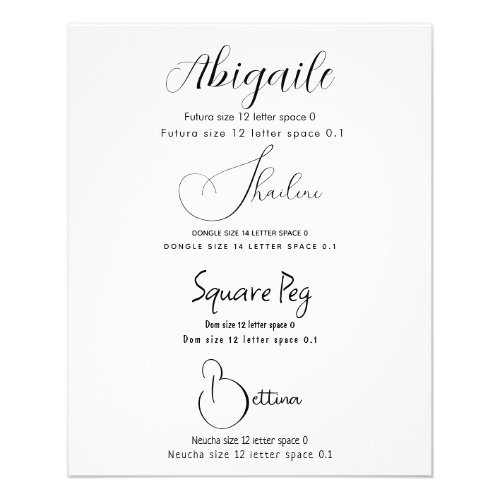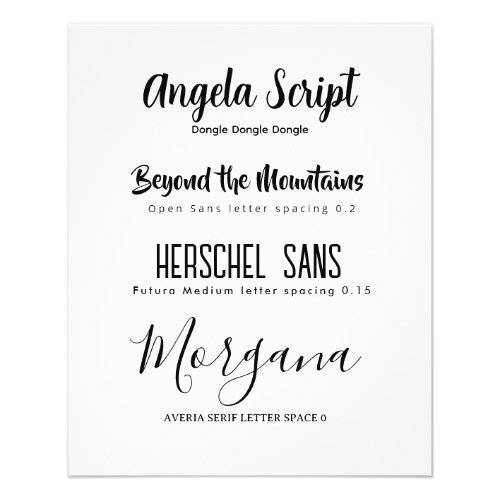
Hi all I’m sharing a couple of resources I have created for my course students so that those new to invitation design can play with different font pairings. I thought I’d share them here as well as I wish I’d had a resource like this back in the day! You are welcome to open up the ‘customize tools’ and ‘copy’ the pairings to your own products for practice or publication. The names of the fonts are as shown in the demo.
Leah, your pairings are superb, and it makes me wonder how, when you’re putting together something new, you recognize what works and what doesn’t. I don’t design for formal occasions, but I nevertheless run into pairing problems on things like informal invitations and business cards. I test and test yet again until a pairing finally “feels” right. Is this how you do it, or have you studied typography?
Yes , trial and error … and a bit of research but the guides I saw online don’t cover Zazzle’s fonts. The main thing I’ve learned is that you can pair the same font, just change the spacing or do one in capitals, one in lower case and just see how that works.
Yes, I’ve looked online too, and you’re right about the fonts they use as examples. It helps a bit in the sense that some the people point out those subtle differences in fonts’ readability, but that’s nowhere near enough, and I’ve spotted their use of letter spacing, which is certainly a good tool to keep on hand.